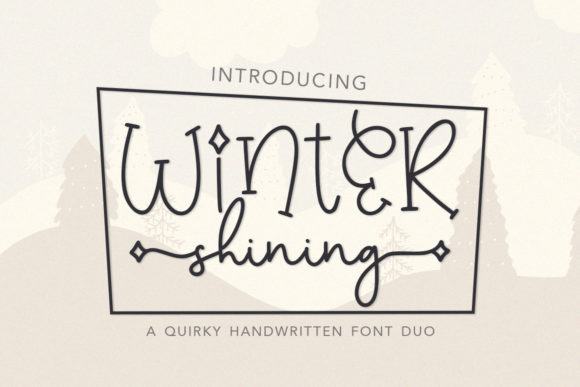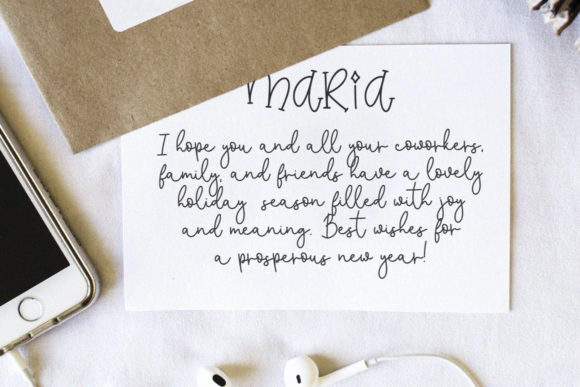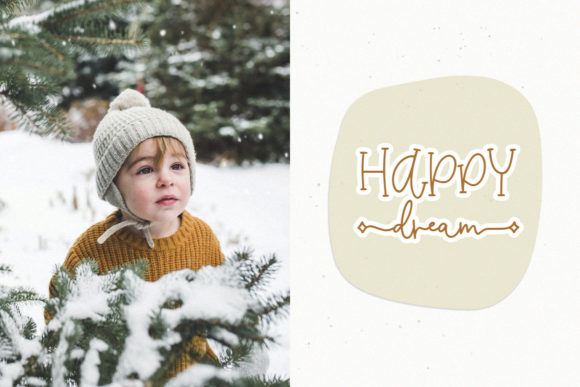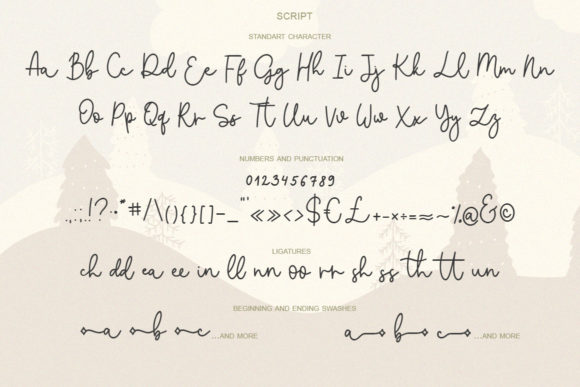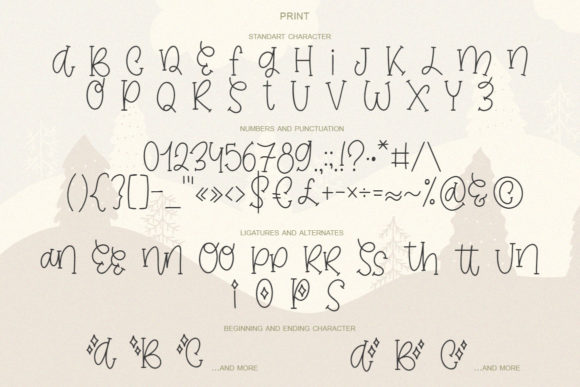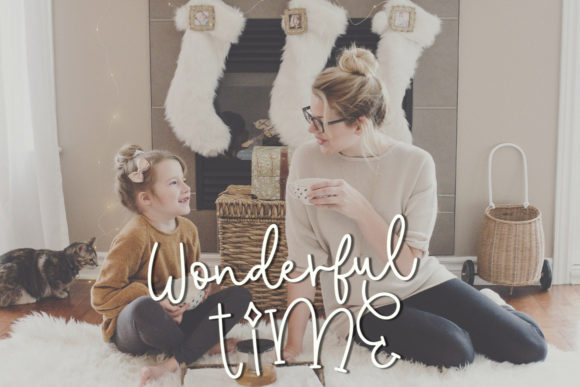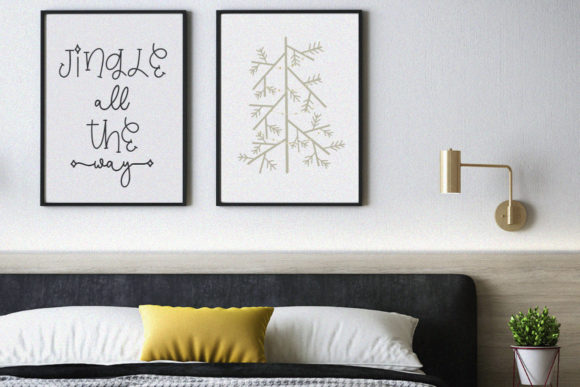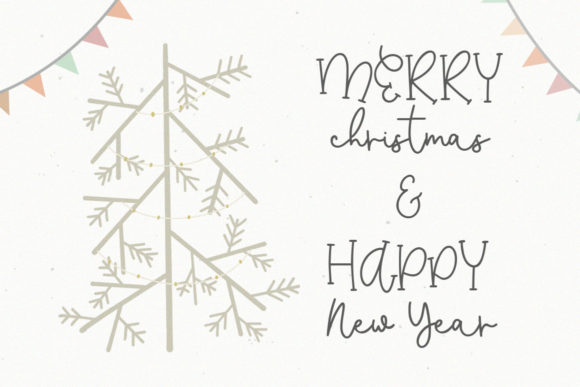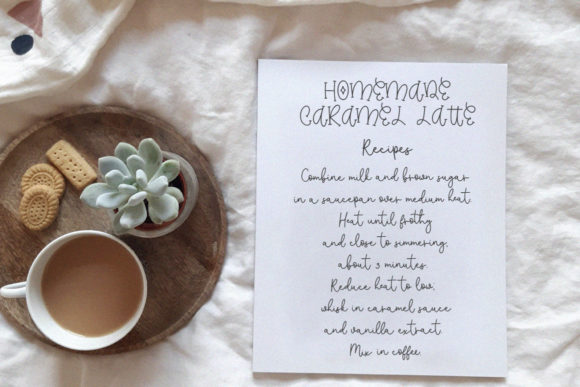
Winter Shining Font
Winter Shining is a quirky, charming handwritten font, described by an elegant touch. Fall in love with its incredibly distinct and timeless style and use it to create spectacular designs!